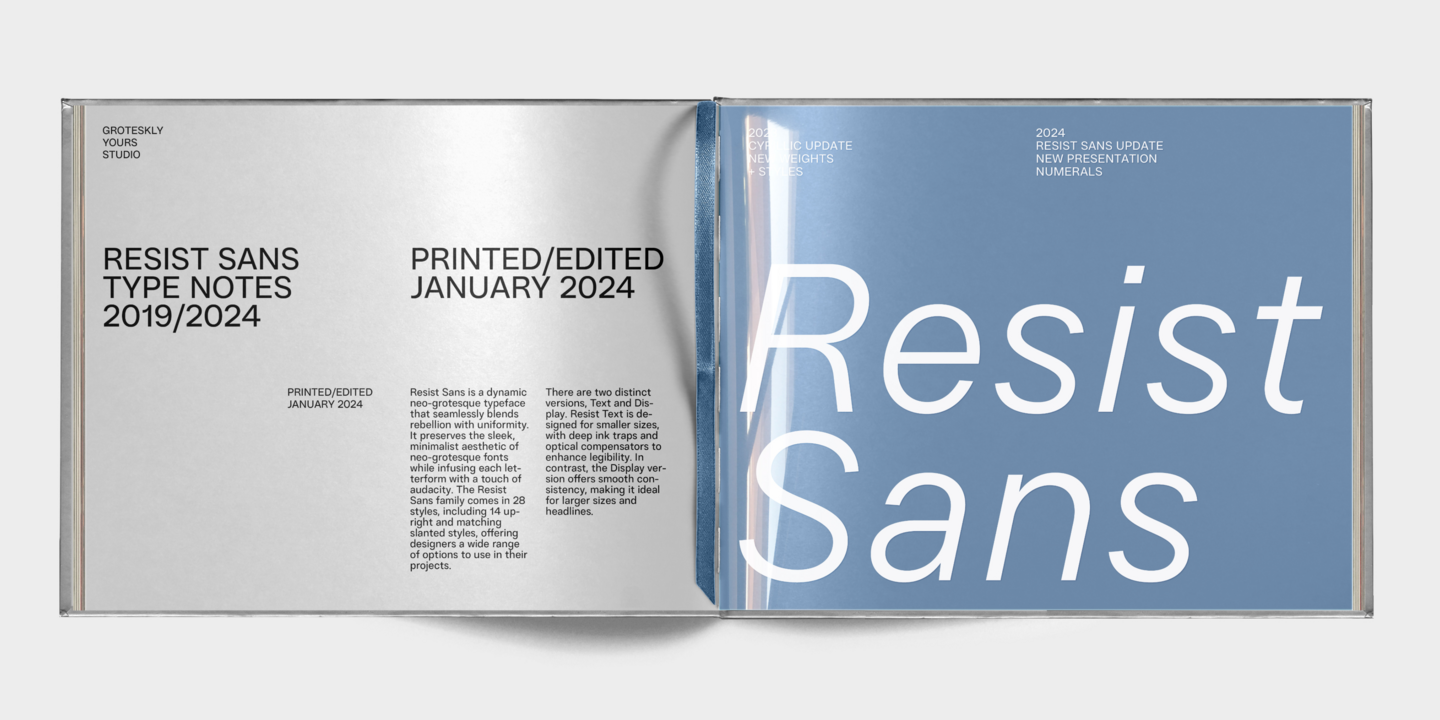
Groteskly Yours Studio (GYS) is a family-owned studio founded by Eugene and Anna. The studio is dedicated to crafting innovative type solutions and delivering exceptional tools for creatives across diverse industries and fields. GYS’s design philosophy is built on the premise that typefaces should be versatile, reliable, and easy to use.
Resist Sans is a free-spirited sans serif type family that harmonizes the innate desire for rebellion with a tendency towards uniformity. Featuring a neutral, minimalist look, Resist Sans easily adapts to a broad spectrum of design needs. Resist Sans comes in two subfamilies (Text and Display), offering a total of 28 styles and over 900 characters in each font.
Oktah Neue is a geometric sans serif type family in 22 styles. The key features of Oktah Neue are excellent legibility, simple geometric letterforms, and low contrast across all styles. Oktah Neue is incredibly versatile, making it a great fit for various scenarios like web design, mobile apps, editorial design, and branding.
Greisen is a functional sans serif type family in 18 styles. Characterized by condensed proportions, legible characters, and a sturdy appearance, Greisen easily adapts to a variety of design projects — from web design and editorial design to packaging and branding. Greisen conveys a sense of security and reliability, making it an excellent choice for projects that require a steadfast and trustworthy aesthetic.
GYS typefaces strike a balance between creativity and functionality. Always favoring the user-centered approach to design, Eugene and Anna develop typefaces that combine innovative design, high quality, and user-friendly features.